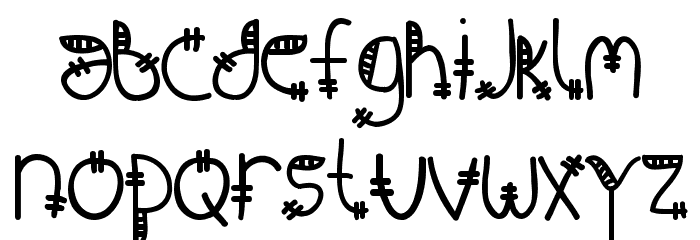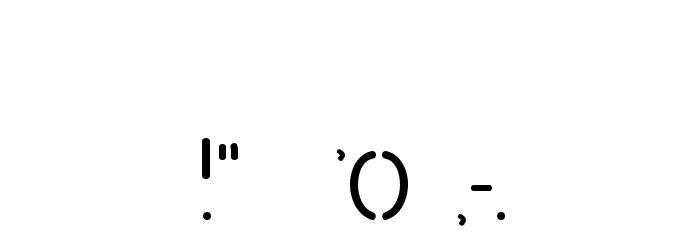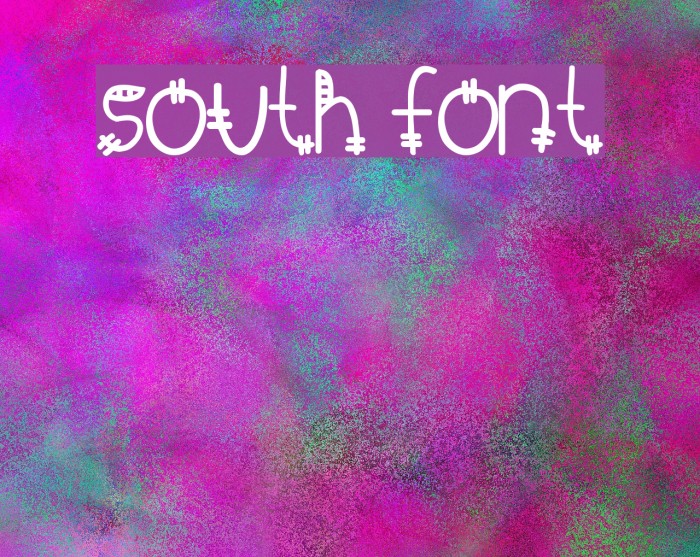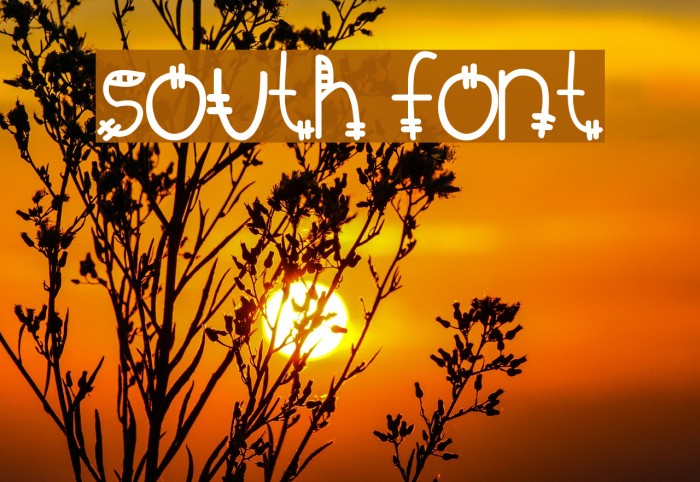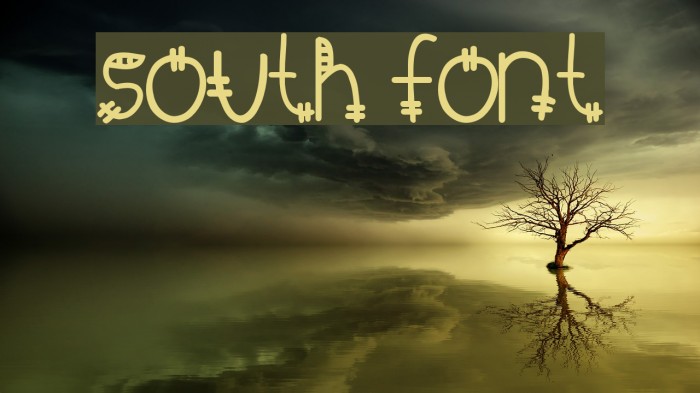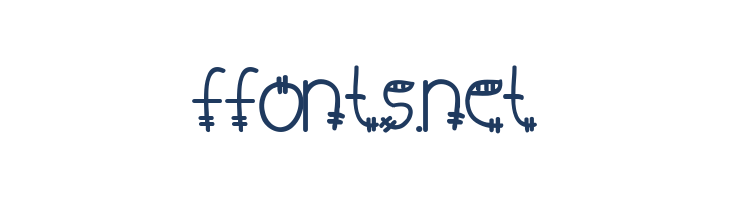
South Font
This font features a unique and playful design, characterized by its decorative elements and whimsical style. Each character is adorned with intricate patterns and embellishments, giving it a distinct and artistic appearance. The font maintains a consistent line weight throughout, with rounded edges and a slightly irregular form that adds to its charm. The overall look is both modern and quirky, making it suitable for creative projects that require a touch of individuality. The characters are well-spaced, ensuring readability while maintaining their decorative flair.
A whimsical and decorative font with intricate patterns and playful style.
- Proposed Projects: Ideal for children's books, creative posters, playful branding, and artistic invitations.
- Overall Style: Playful, Artistic